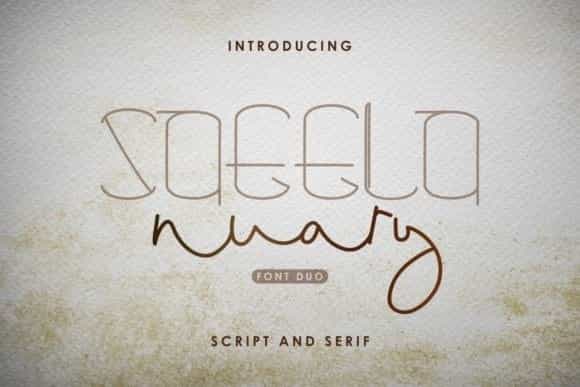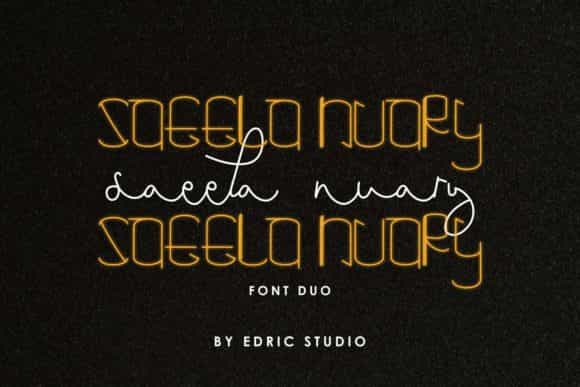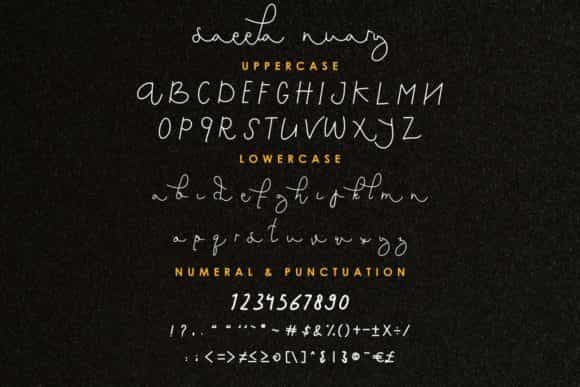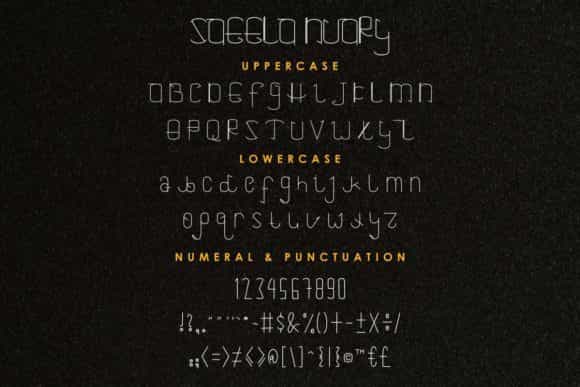
Saeela Nuary is a delightful pair of script and serif fonts that can add personality to your designs! Whether you’re working on a Christmas card, a business logo or a party invitation this font duo will effortlessly elevate your creations. Packed with opentype features, like ligatures and language support it offers versatility and style.